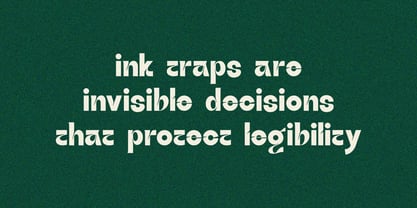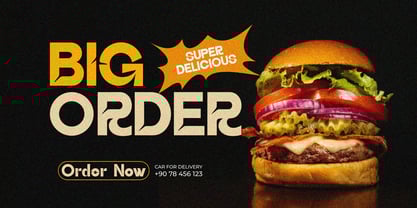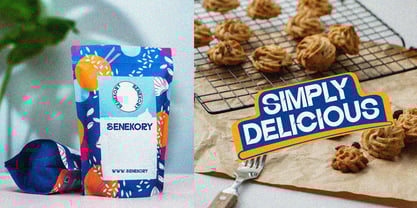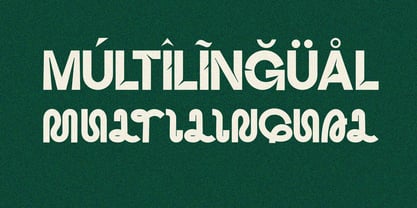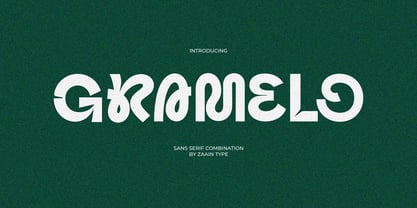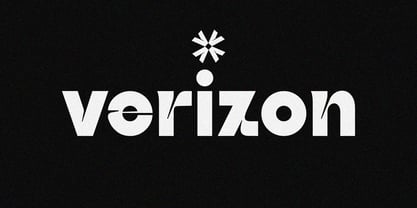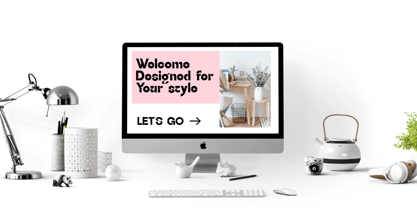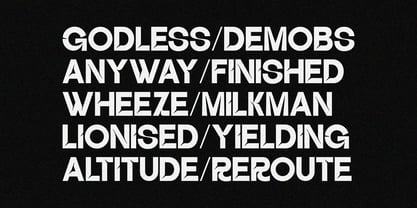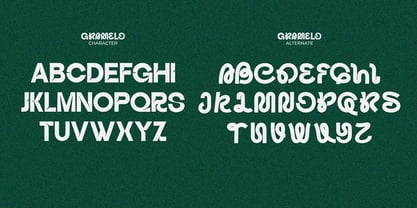
Gramelo
by Zaain Type
The Gramelo Font Family was designed by Ju Naen and published by Zaain Type. Gramelo contains 2 styles and family package options.
Gramelo is a display sans serif typeface with a distinctive combinational character. Designed to be bold, expressive, and visually striking, it blends clean sans serif foundations with unique stylistic details across selected glyphs, creating a modern yet character-driven appearance. Its strong proportions and dynamic rhythm make Gramelo stand out in headlines, logos, posters, packaging, and contemporary branding. The combinational design elements add a signature accent while maintaining clarity and legibility. With a confident, modern aesthetic and high visual impact, Gramelo is an ideal choice for creative brands, fashion, music, and design projects that demand a display sans serif font that is bold, modern, and memorable
Designers: Ju Naen
Publisher: Zaain Type
Foundry: Zaain Type